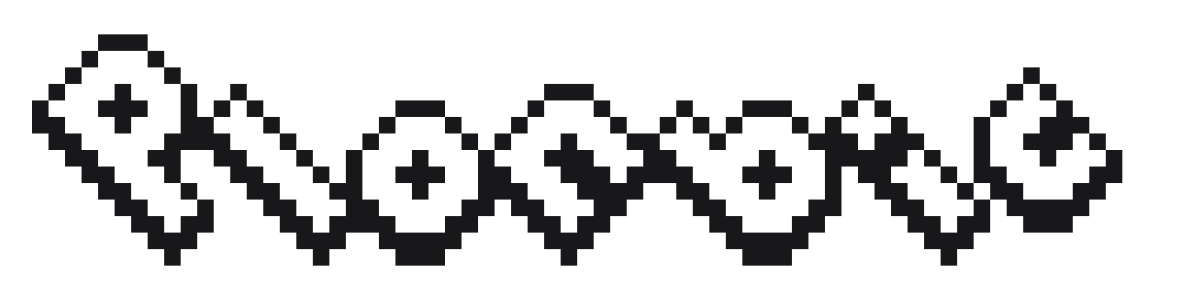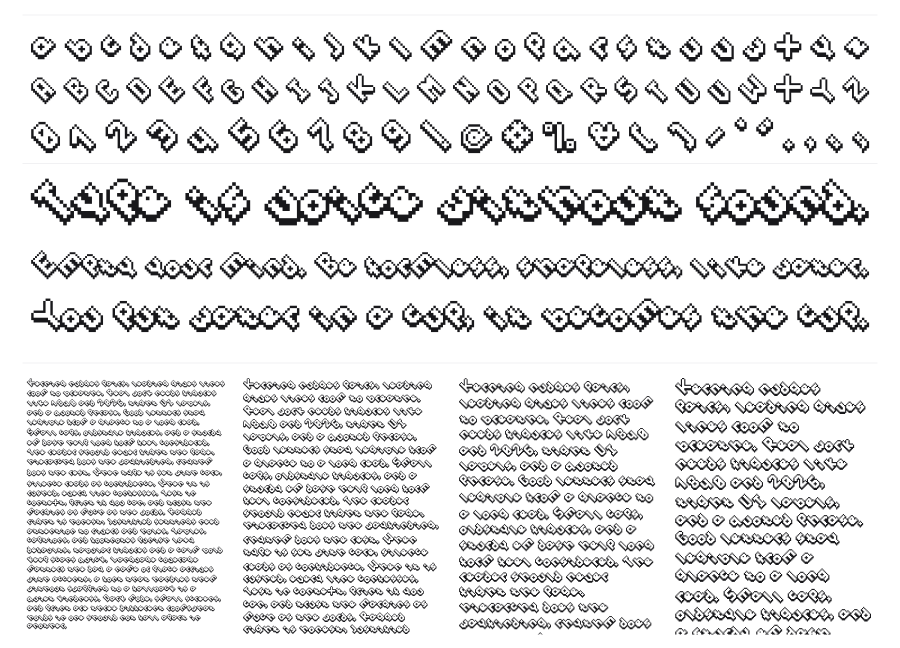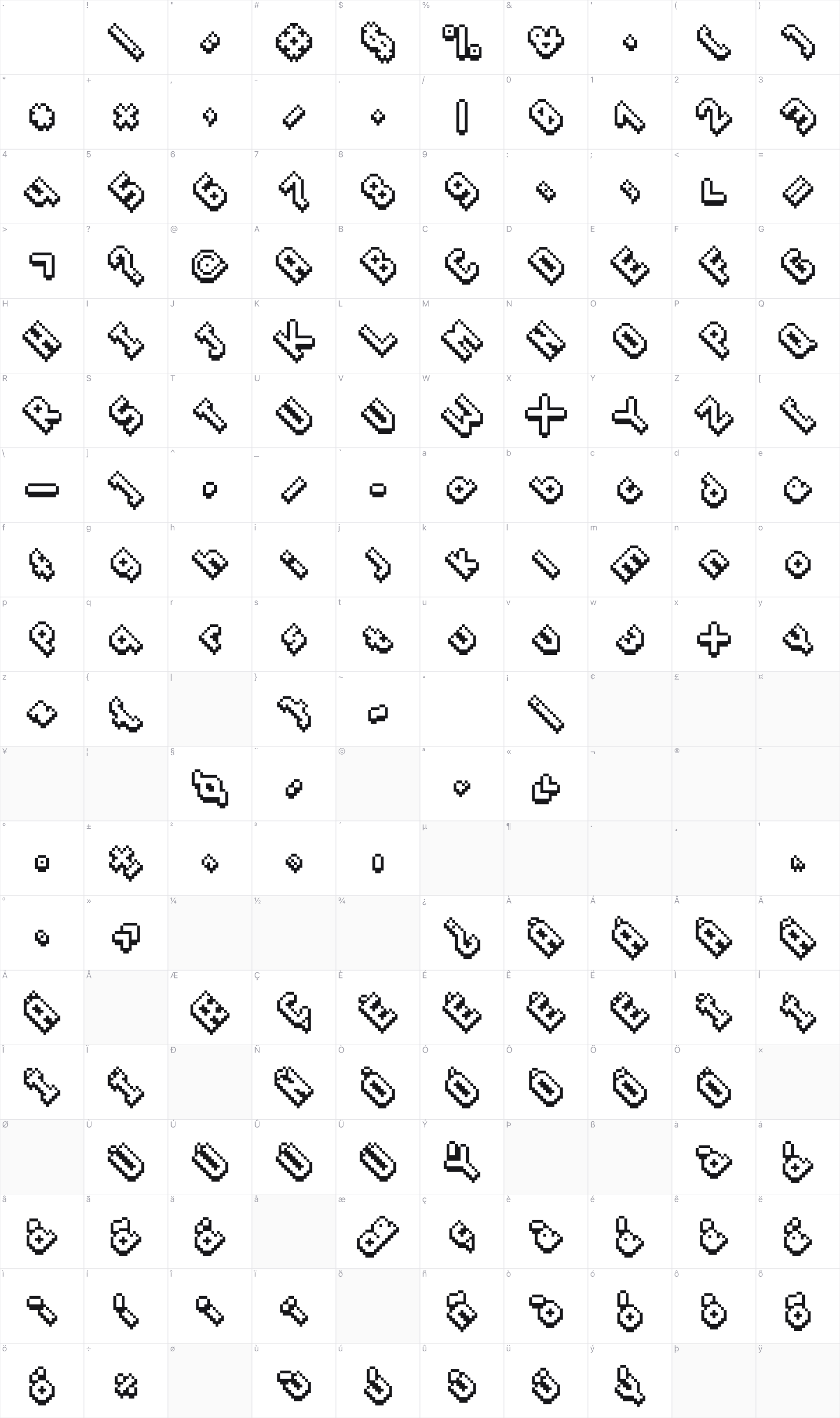
Plonbic
by MrtheNoronha
Plonbic is a pixel-art novelty font where every character sits rotated 45 degrees inside a diamond-shaped pixel border. The result is a zigzag chain of bold, blocky characters that reads more like a decorative band than a conventional text line. It's a highly specific aesthetic built for pixel-art gaming contexts and retro digital branding.